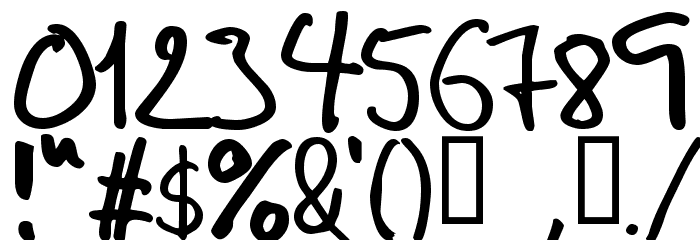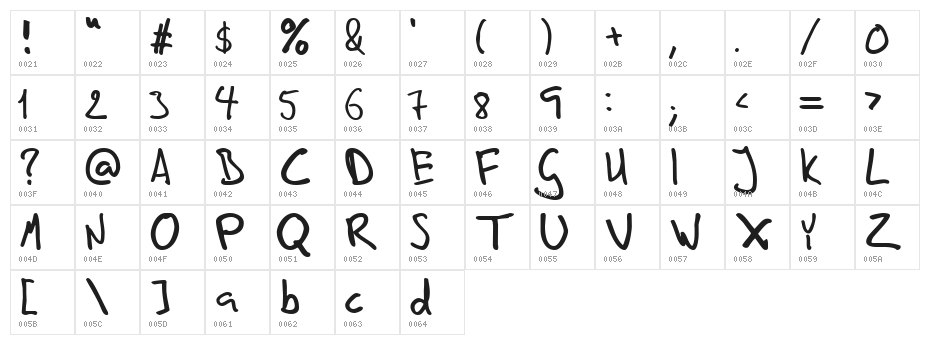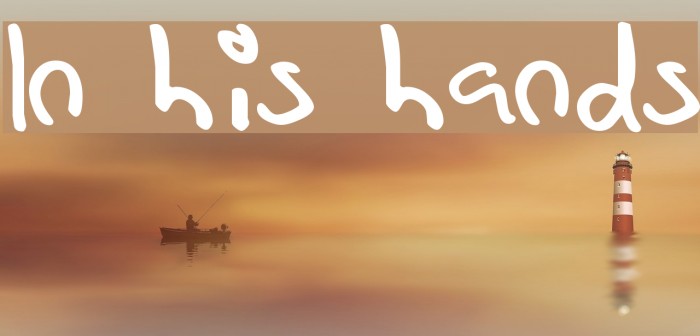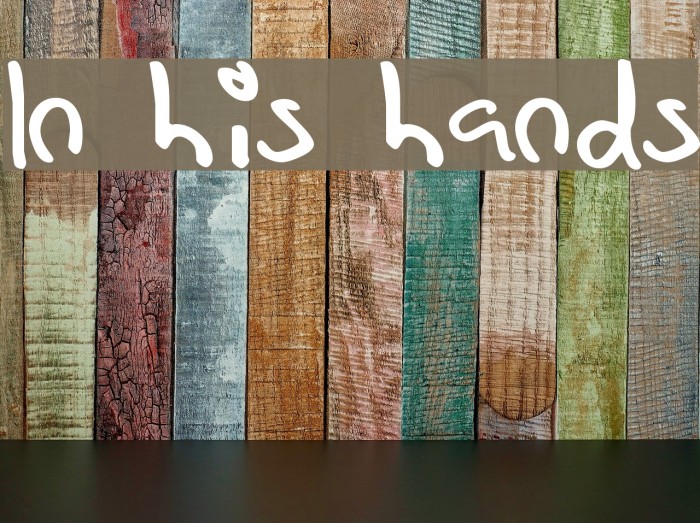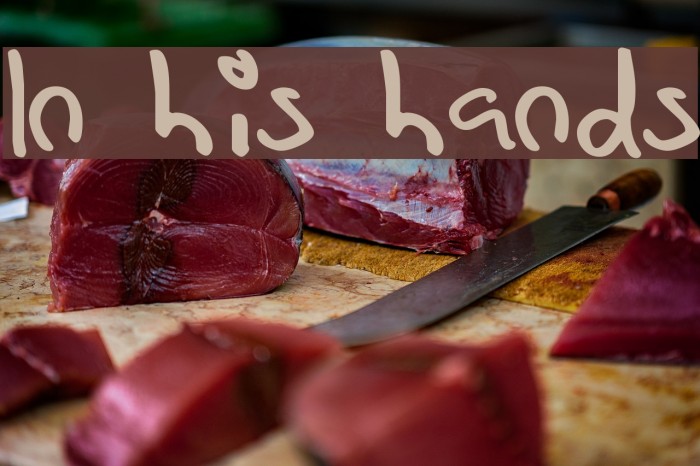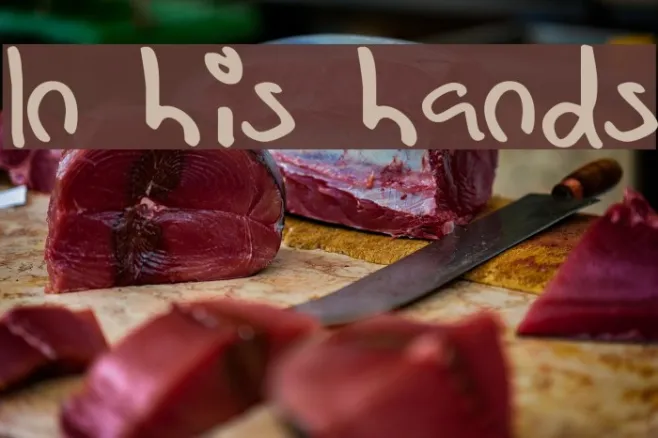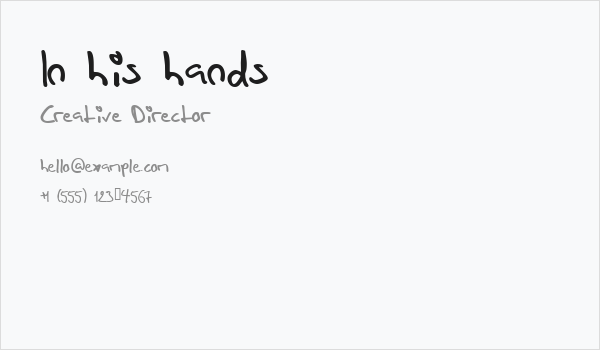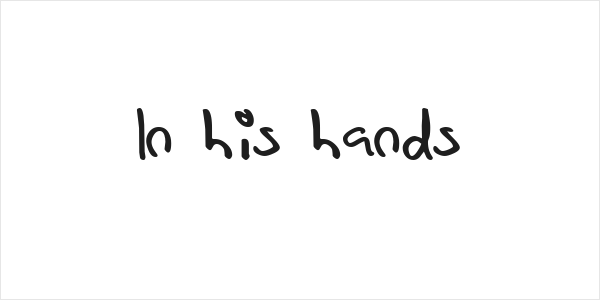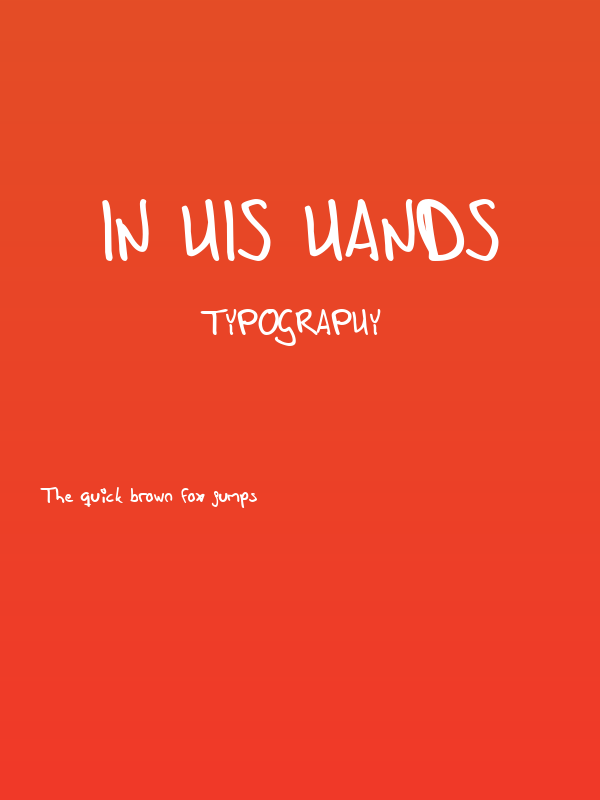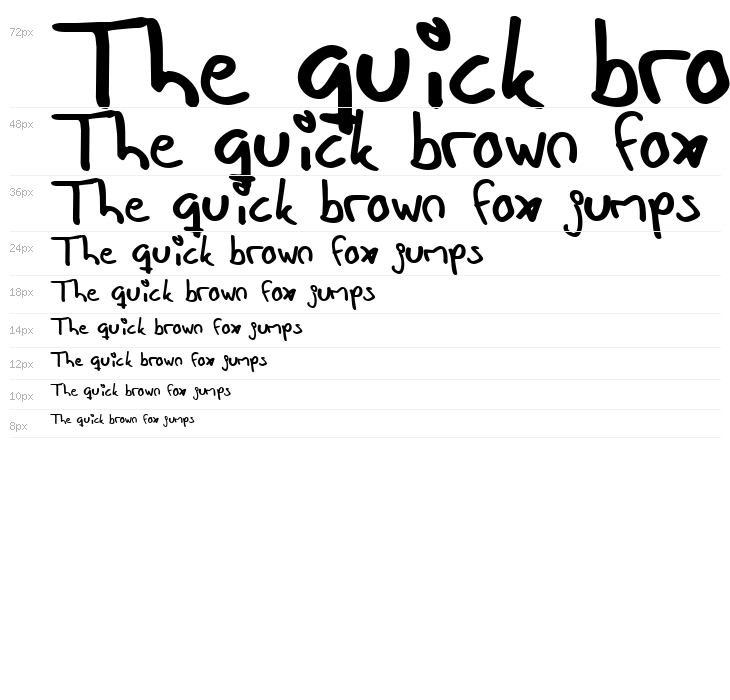
In his hands Font
In his hands Description
This font exudes a playful and casual handwritten style, characterized by its irregular and dynamic strokes. The letters are bold and slightly uneven, giving it a lively and informal appearance. The uppercase and lowercase letters maintain a consistent flow, while the numbers and special characters complement the overall aesthetic. The font's organic feel makes it suitable for projects that require a personal touch or a creative flair. Its unique style stands out, making it ideal for eye-catching designs.